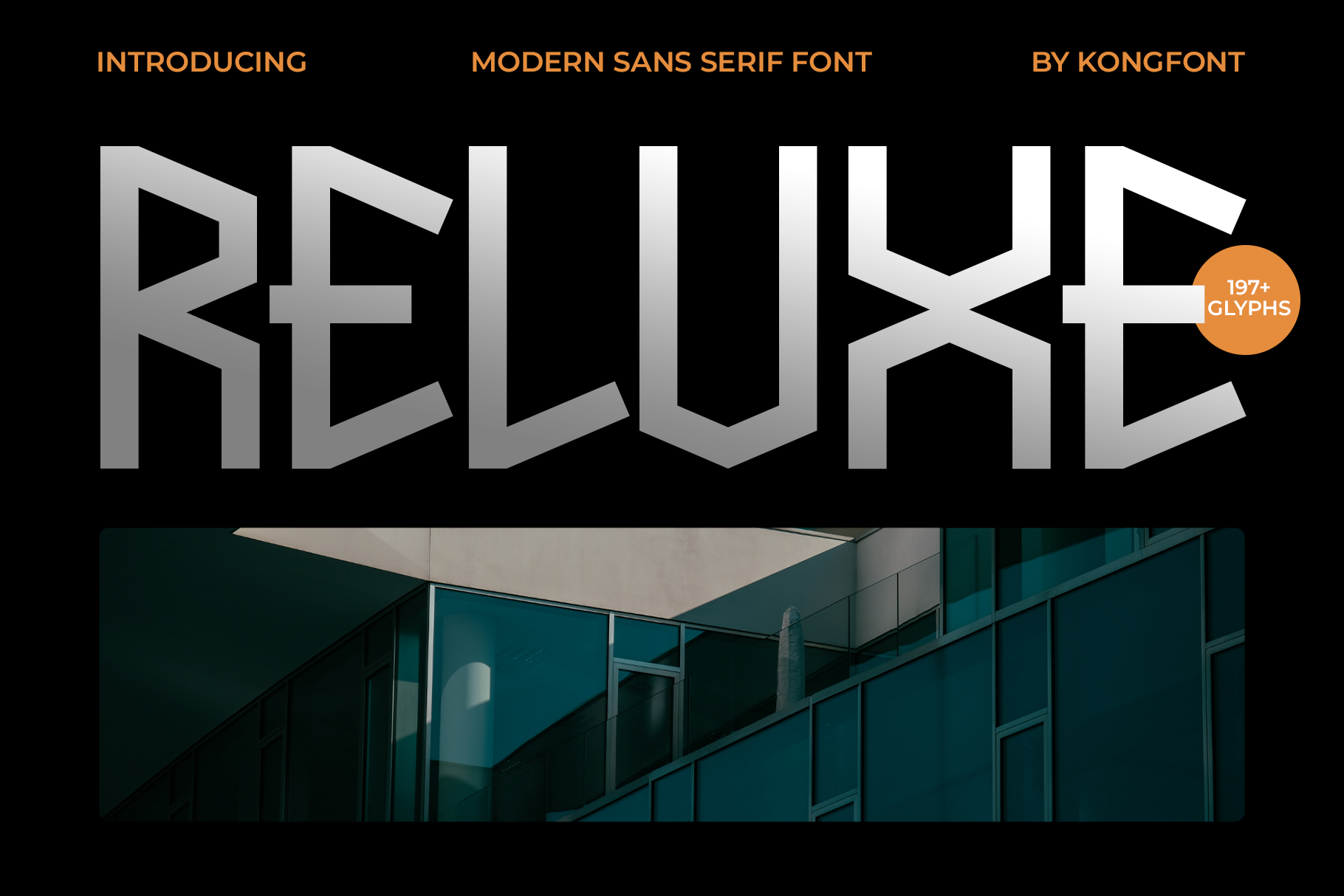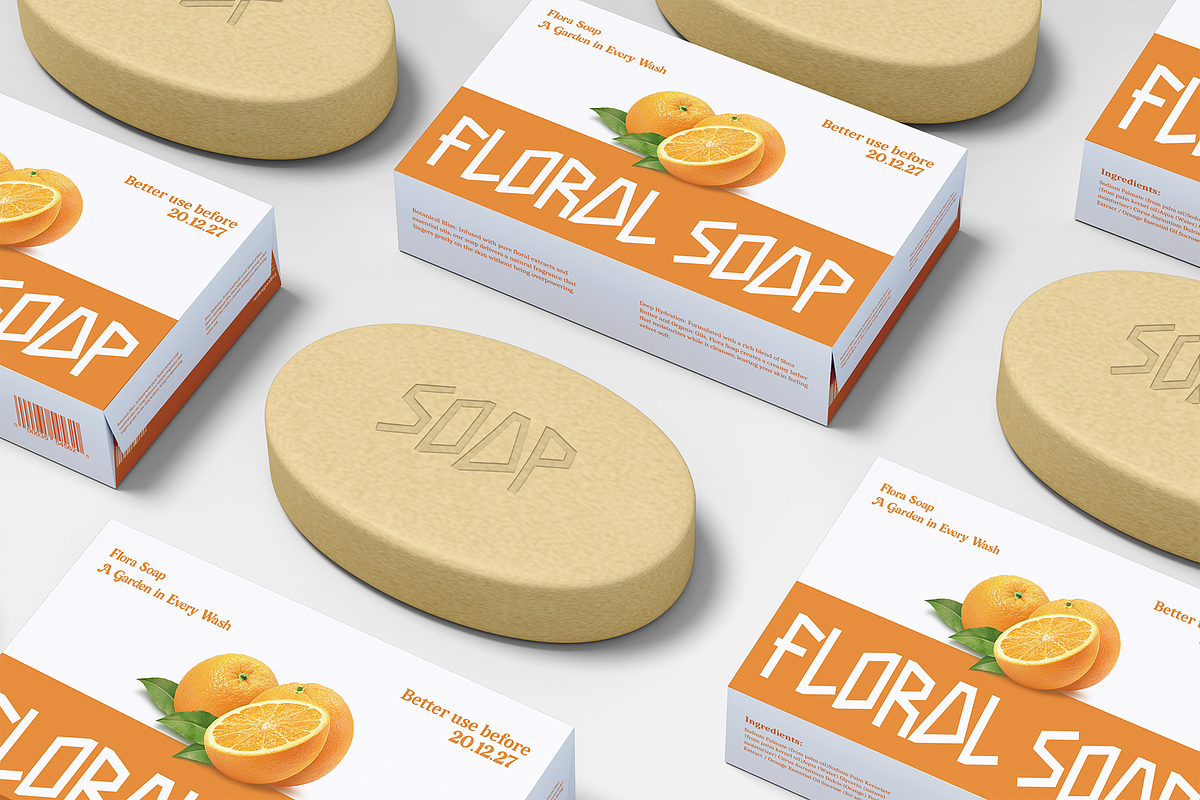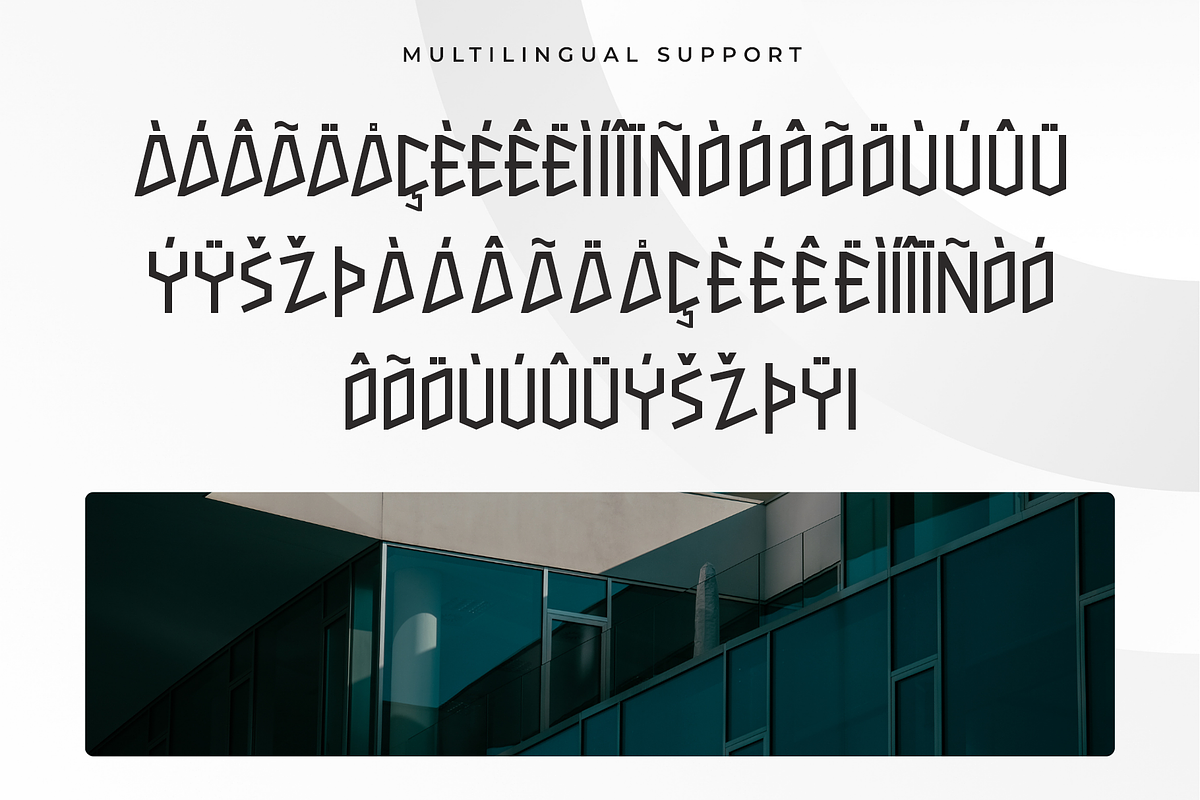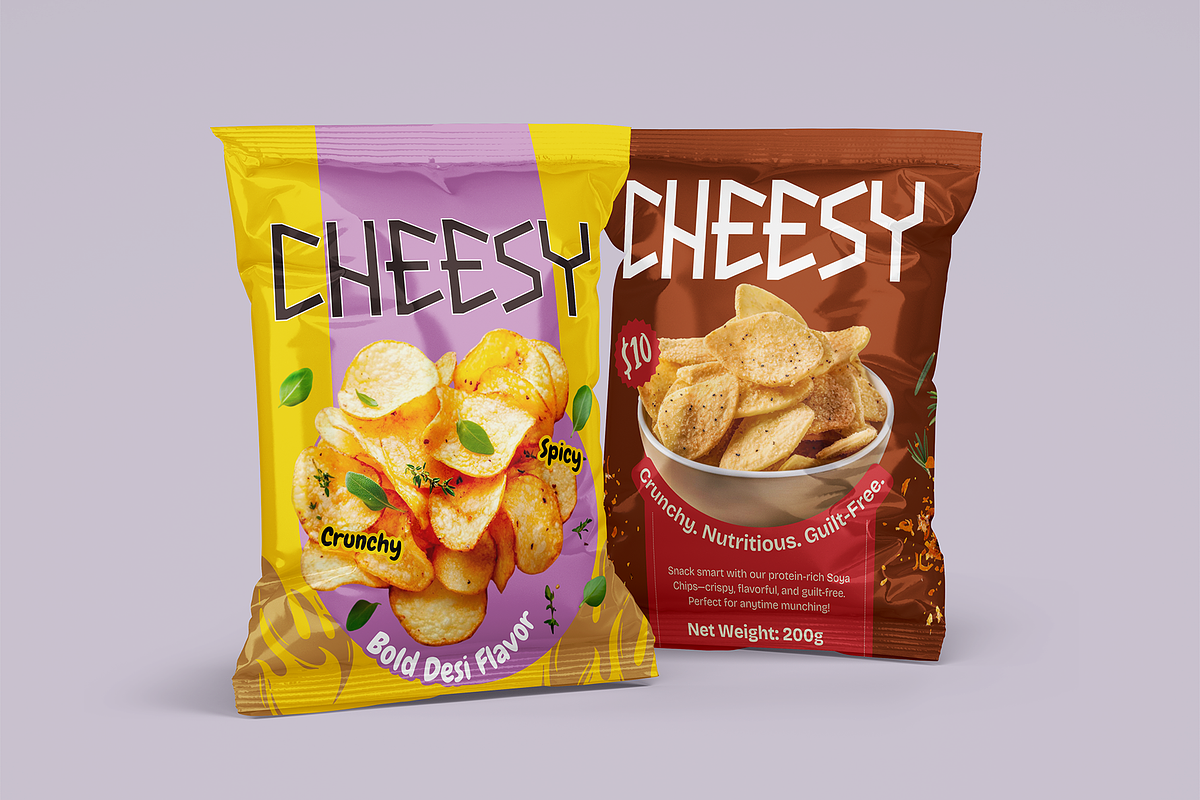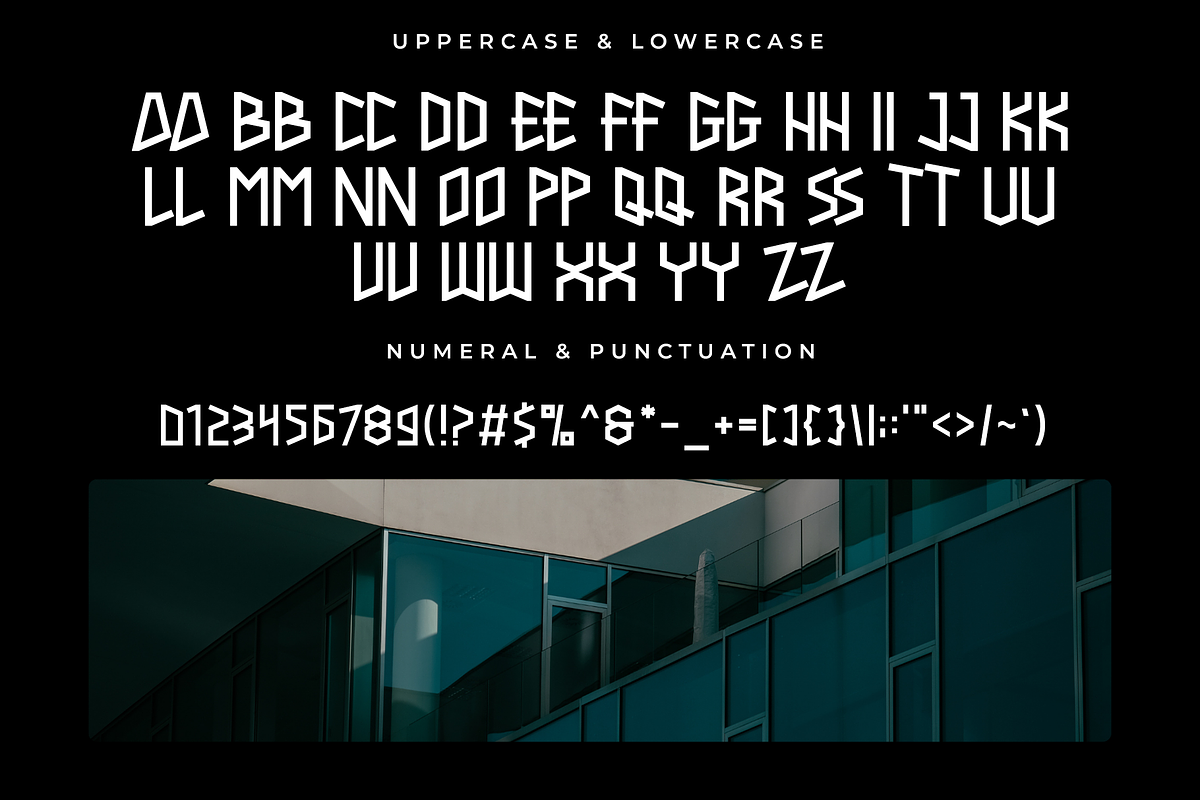
Reluxe – Modern Sans Serif Font
Reluxe is a modern sans serif font that blends clean minimalism with refined sophistication. Designed with smooth curves, balanced spacing, and elegant proportions, Reluxe delivers a premium look while maintaining excellent readability.
Perfect for luxury branding, fashion labels, beauty products, editorial layouts, social media graphics, highend packaging, and modern websites, Reluxe brings a polished and upscale feel to every design. Its stylish yet versatile structure makes it suitable for logos, headlines, and professional brand identities.